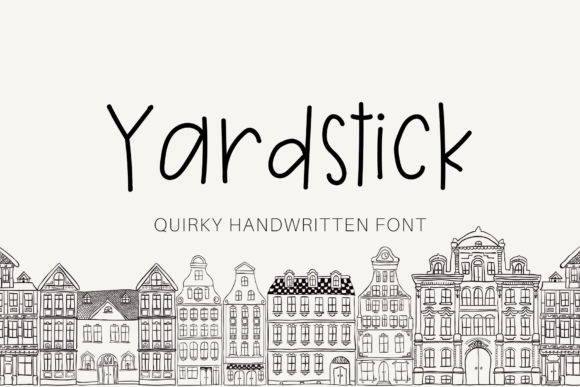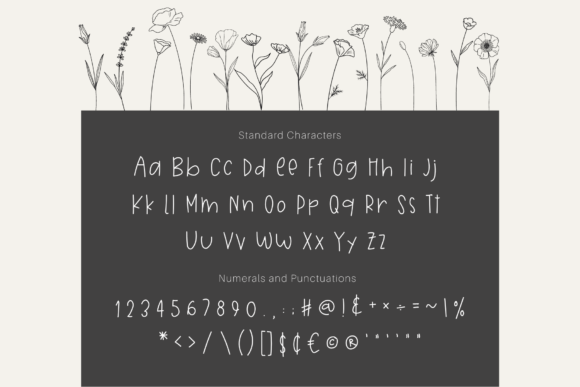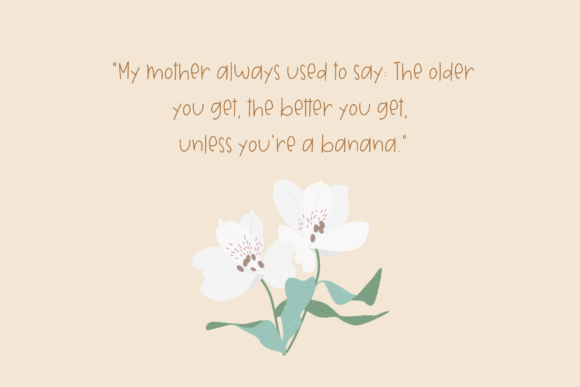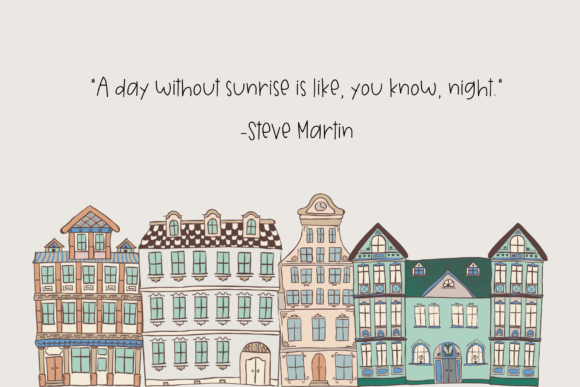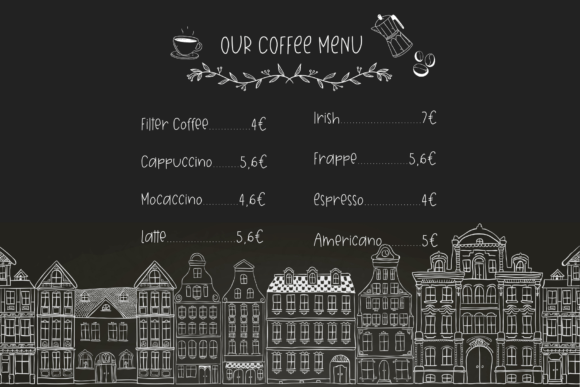
Yardstick Font
Yardstick is a fun and quirky handwritten font. Suitable for journaling, digital notes, scrapbooking, invitations, branding, Instagram, cards, social media, stickers, blog posts, and much more!